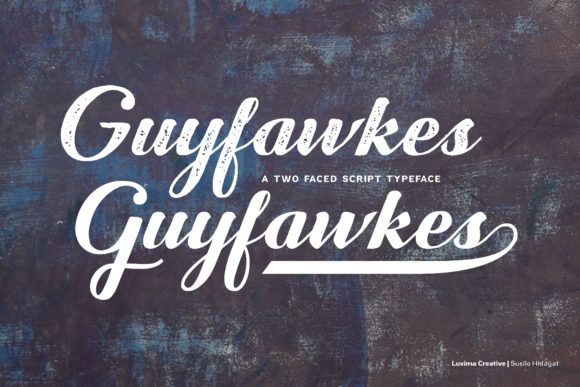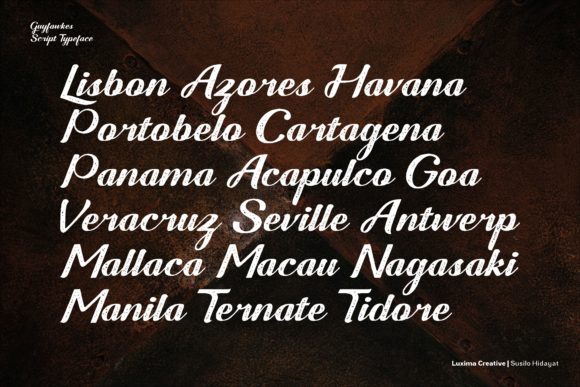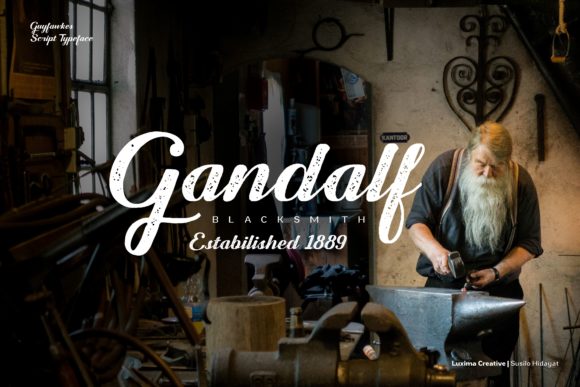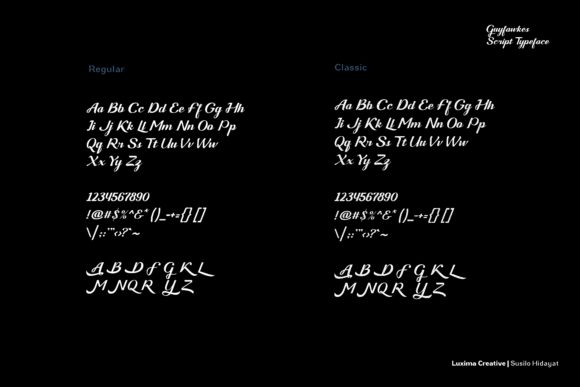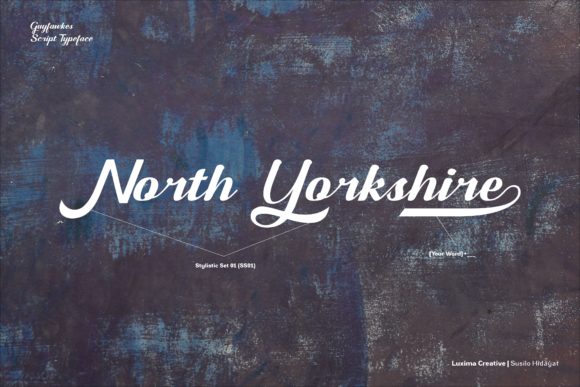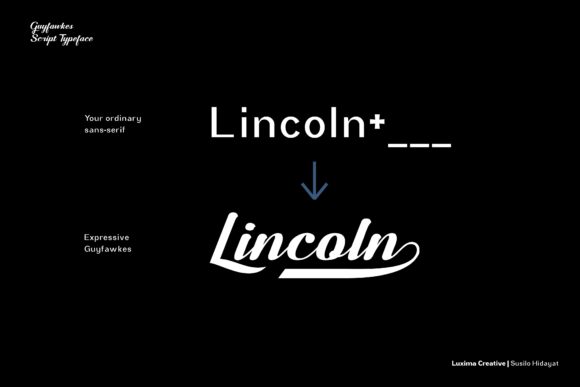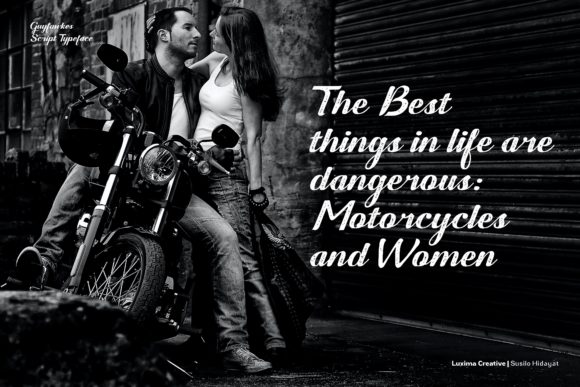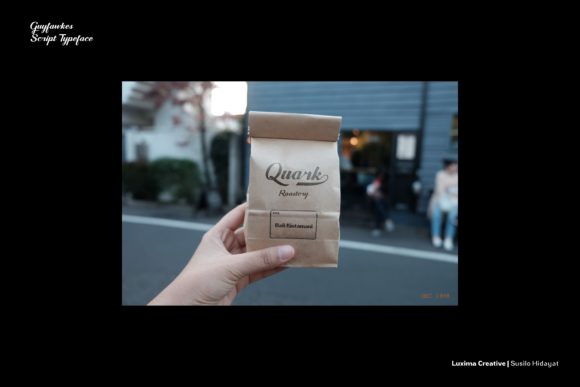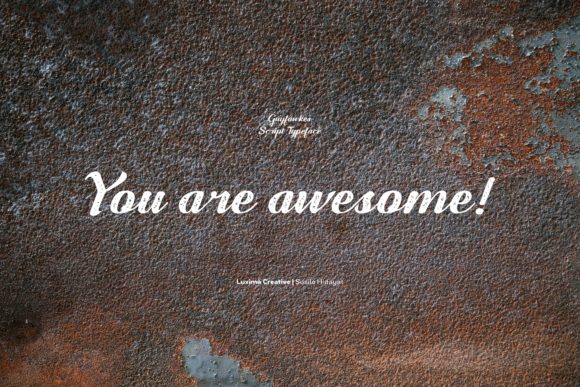
Guyfawkes Font
About Guyfawkes Font
Guyfawkes is a beautiful and cursive handwritten font. It has a warm touch and is ideal for each of your festive designs. It is suitable for any branding, product packaging, invitation, quote, t-shirt, label, poster, logo that you wish to develop.